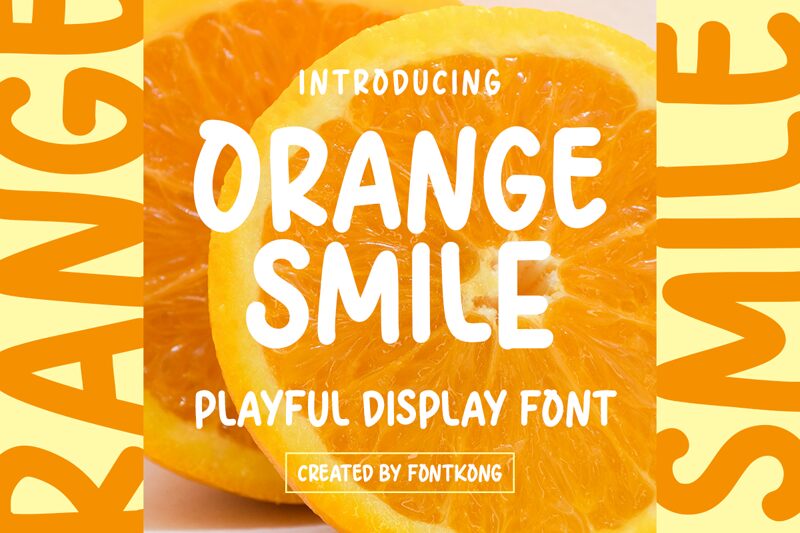
Orange Smile font by Kong Font is a playful comic typeface with a hand-drawn aesthetic. Casual and informal, this cheerful font is approachable by readers of all levels. The friendly letterforms combine subtle geometric influences with modern style to form an organic and energetic product. The font brings positive energy to the table and offers maximum readability.
Every audience will find Orange Smile enjoyable, which makes it ideal for social media posts, illustrated books and stories, website design, branding, packaging, typography posters, and more. It is also perfect for mobile applications, emails, advertising, and banner designs.